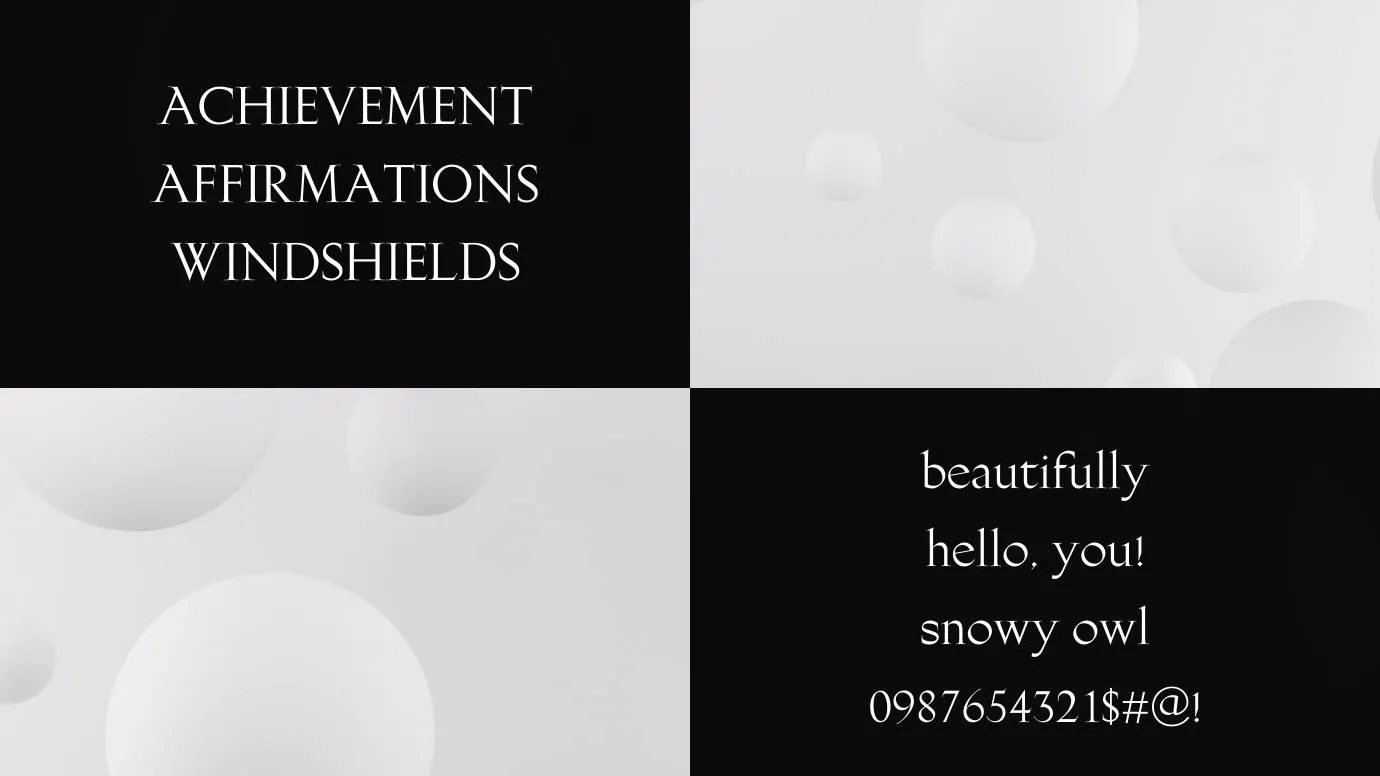
Are you looking for an interesting and attractive typeface for your project? Gill Facia Font is a neat and clean typeface. Gill Facia typeface is a serif typeface that was created by a British typeface designer.
The font has a unique design that is both modern and classic. The main features of the font are its wide range of weights and its high readability. Gill Facia typeface is most commonly used for titles and headings. However, it can also be used for body copy.
Gill Facia typeface has a complete set of characters including upper and lowercase letters, numbers, and punctuation. Gill Facia typeface is available in seven weights: light, regular, bold, black, extra black, ultra black, and heavy. This typeface is similar to the cinzel font.
Designer of Gill Facia Font
This beautiful and unique typeface is designed by British typeface designers Eric Gill and Colin Banks for the foundry Monotype in 1932.
This font style is created with an exclusive and consistent style. This single attractive style is a combination of various characteristics, including capital and small alphabets, numbers, symbols, special characters, punctuations, glyphs, and different language support.
| Name | Gill Facia Font |
| Style | Serif |
| Designer | Eric Gill & Colin Banks |
| Foundry | Monotype |